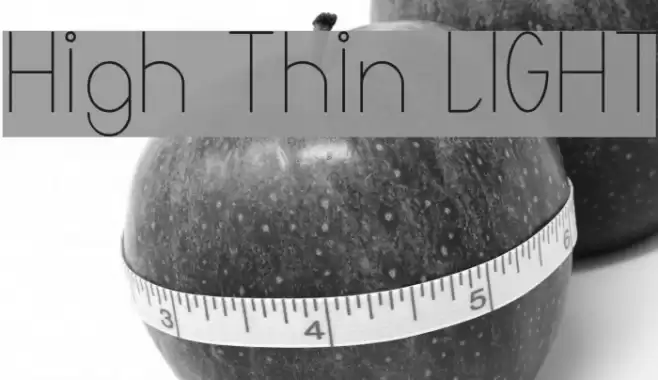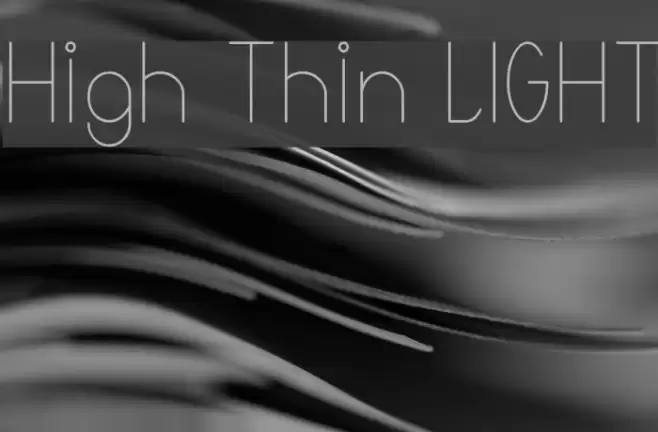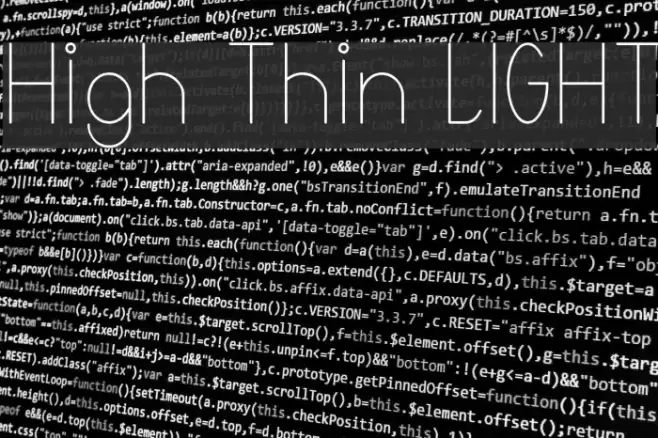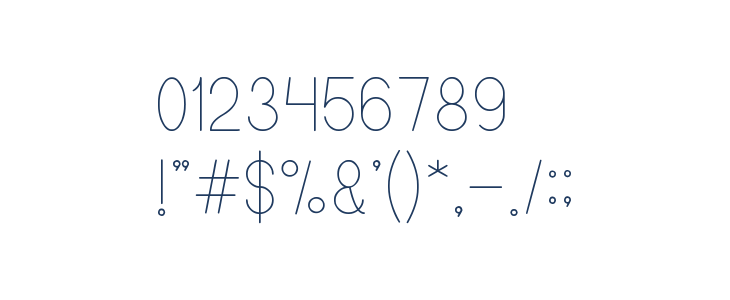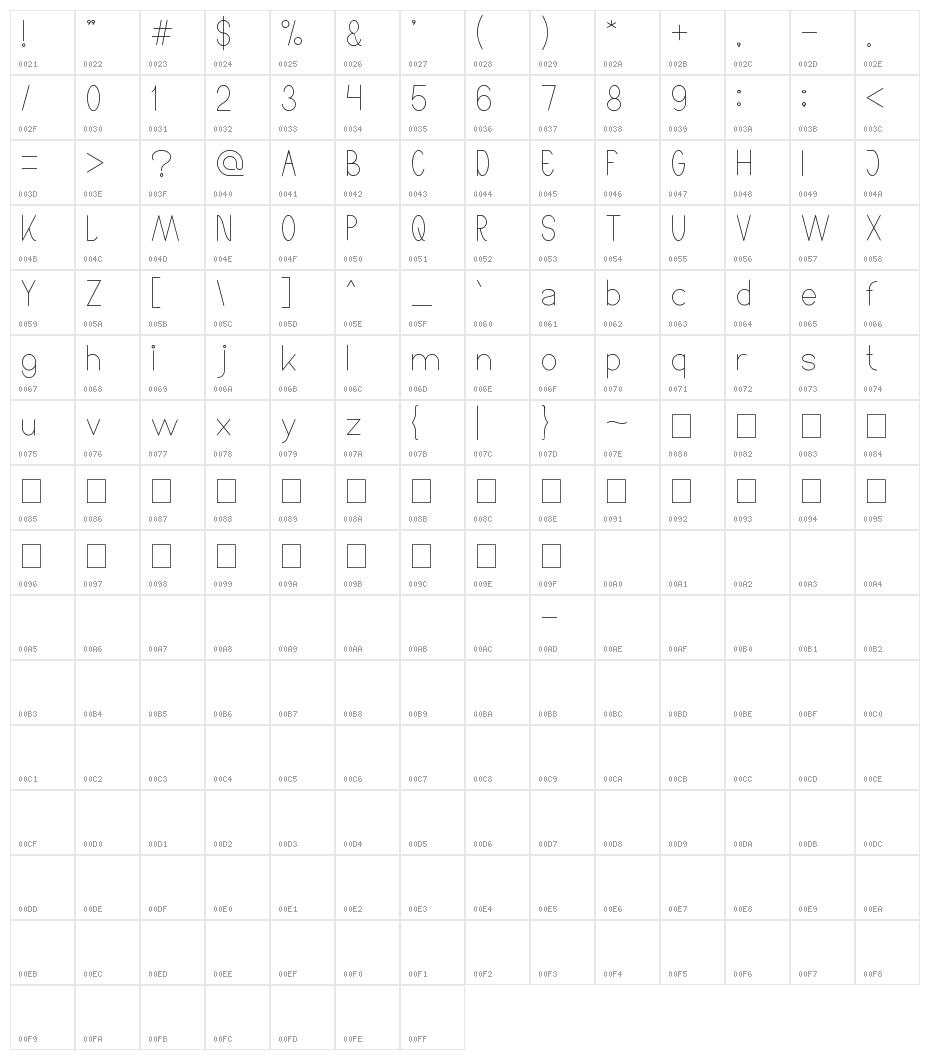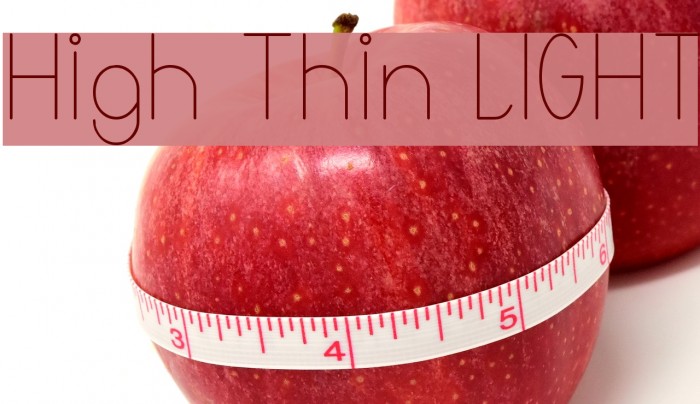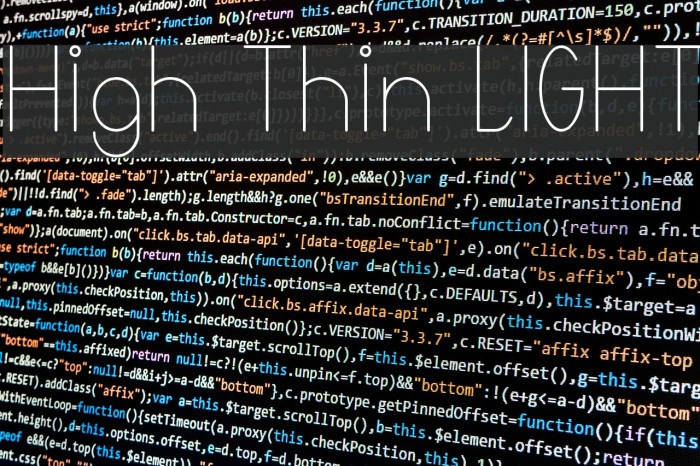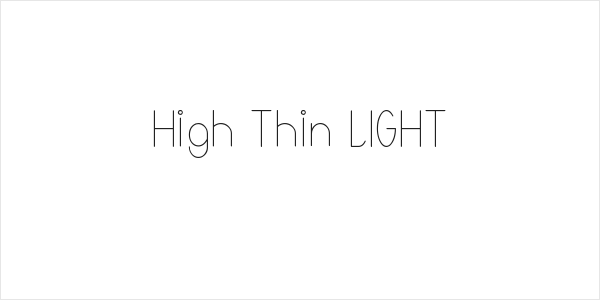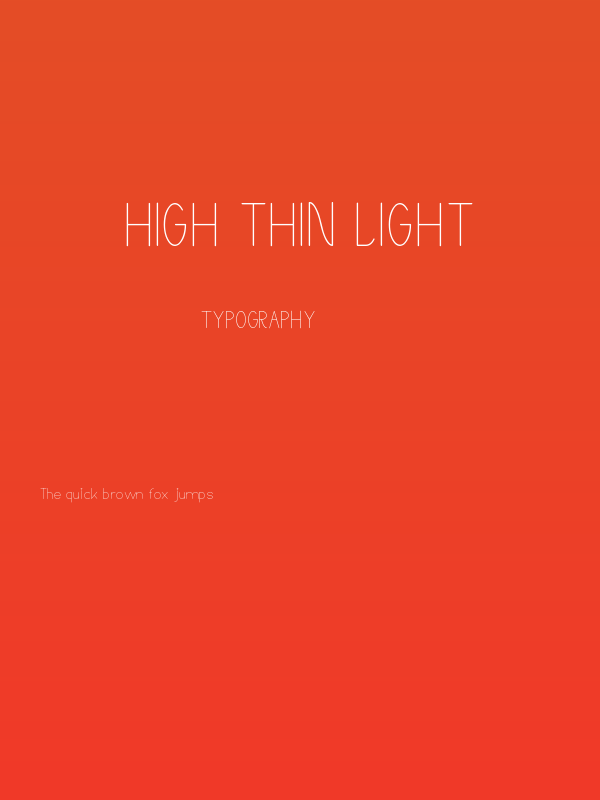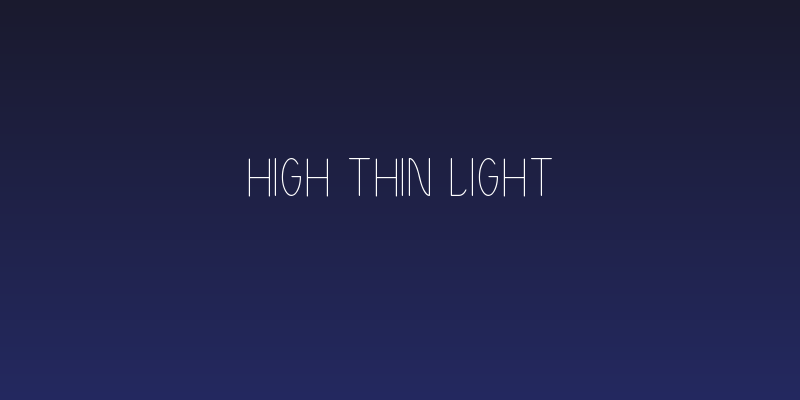
High Thin LIGHT Font
High Thin LIGHT Description
This font features a sleek, minimalist design with thin, high lines that give it a modern and elegant appearance. The characters are crafted with precision, showcasing a uniform stroke width that maintains consistency throughout. The uppercase letters are tall and narrow, while the lowercase letters maintain a similar slender profile, creating a harmonious balance. The numerals and special characters are designed to complement the alphabet, maintaining the same thin and airy aesthetic. This font is ideal for projects that require a clean and contemporary look.
A sleek, modern font with thin, high lines and a minimalist design from Uncategorized fonts.